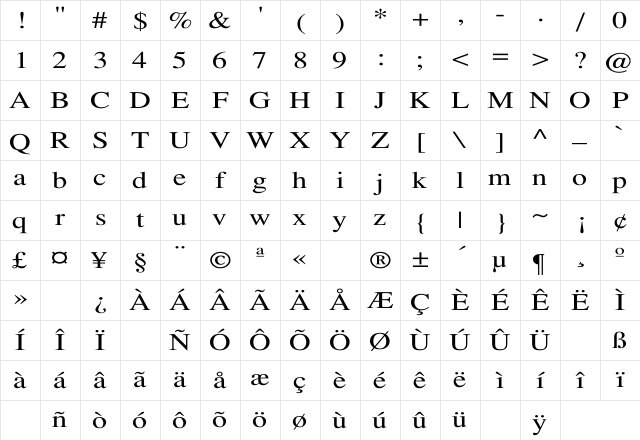
RSTempus Wd Regular
Design Context for RSTempus Wd
RSTempus Wd is a composed and adaptable typeface that performs quietly and consistently across a wide range of design contexts.
Pro Tip: Use RSTempus Wd in both headline and body roles to test its range before committing to a single application.